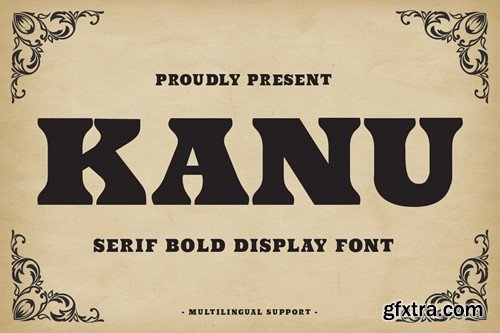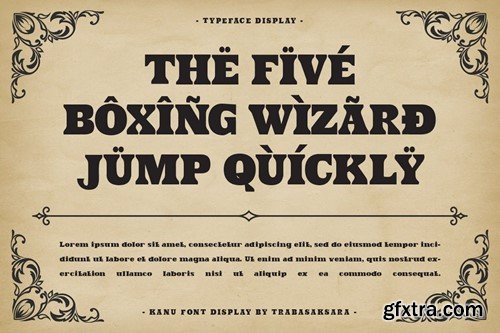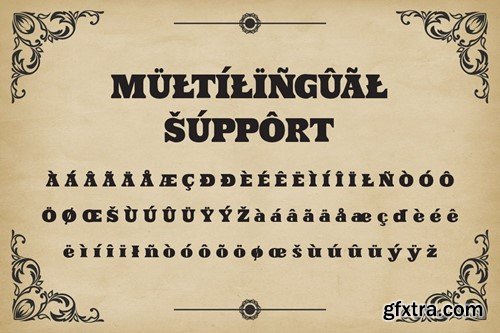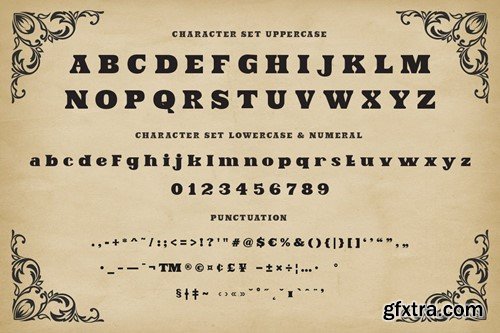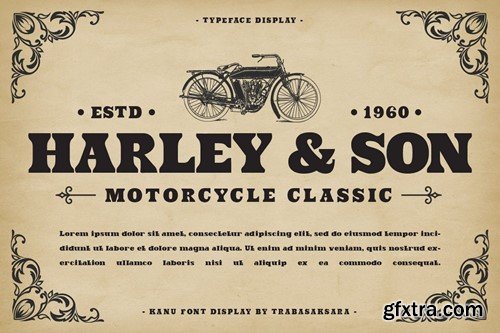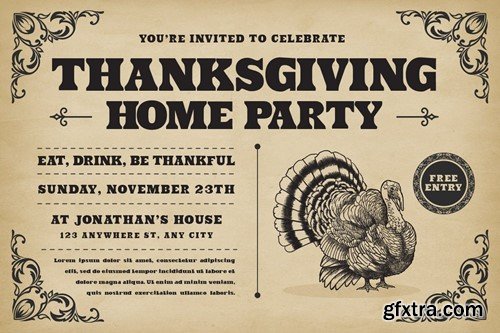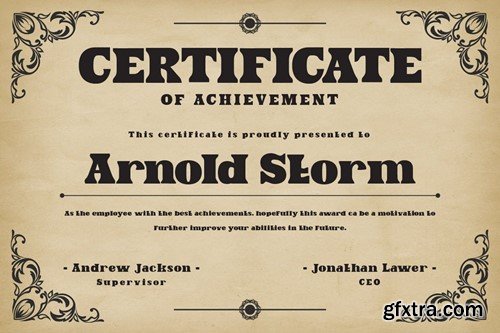
昆仑 - 羽毛头衬线标题字体 YVKYSN2
Kanu - Serif Display Font YVKYSN2
Kanu - Serif Display Font
Kanu is a serif display font that combines classic style with modern design. Its elegant serifs and balanced characters make it a versatile choice for a wide range of designs. Whether you’re creating a logo, a headline, or a body of text, Kanu will add a touch of class.